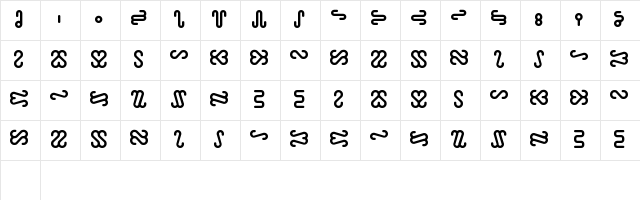
Ophidian Bold
Foundry: Neale Davidson
Designer: Neale Davidson
Design Context for Ophidian
Ophidian is a composed and adaptable typeface that performs quietly and consistently across a wide range of design contexts. Its bold stroke weight gives it real presence on the page.